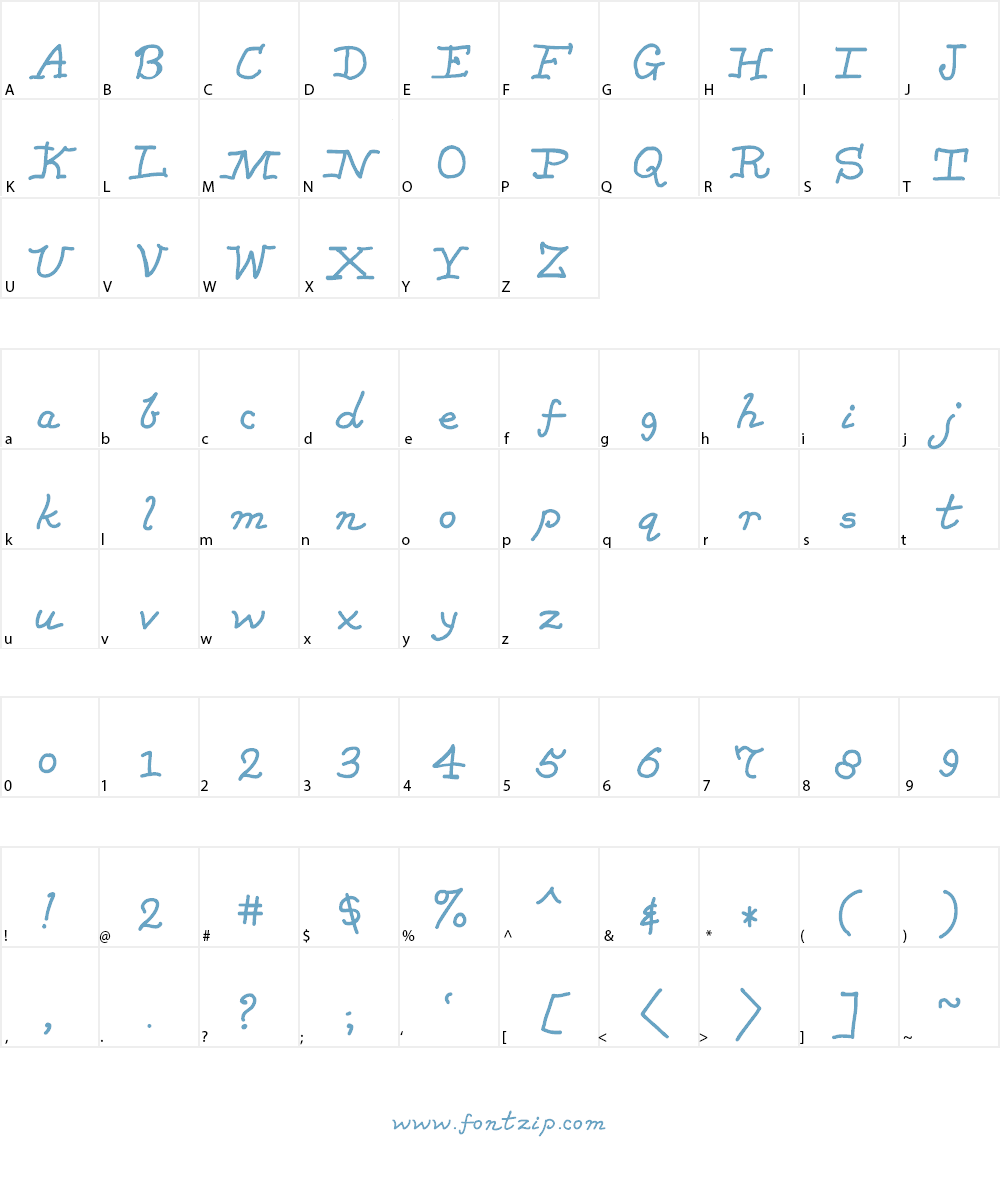
If I made a half-hearted attempt at forging Lewis Carroll's handwriting, it might look something like this. It is a riff on Jaz's classic font Lewis Carroll but with a more even line weight.